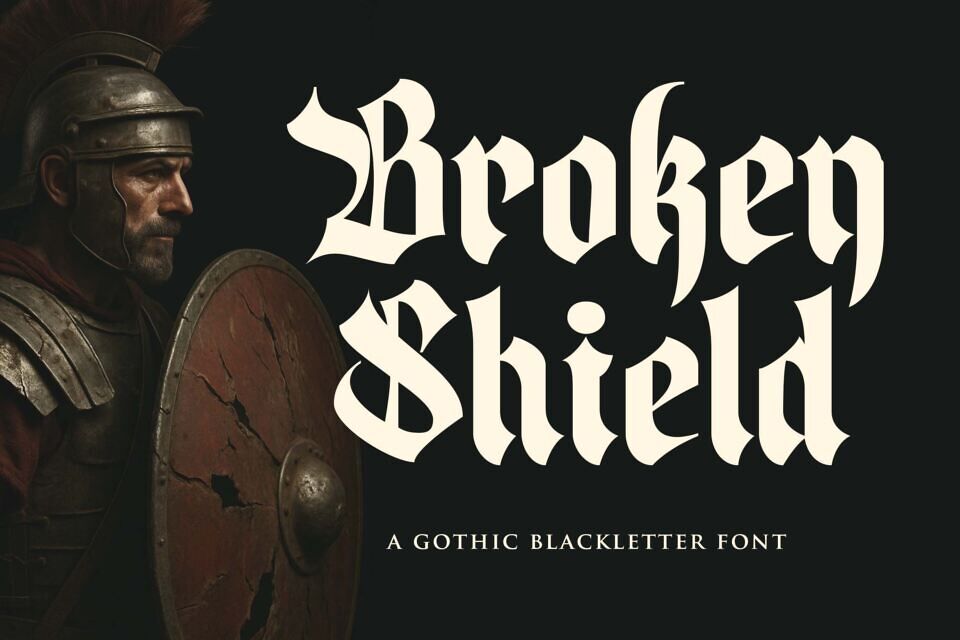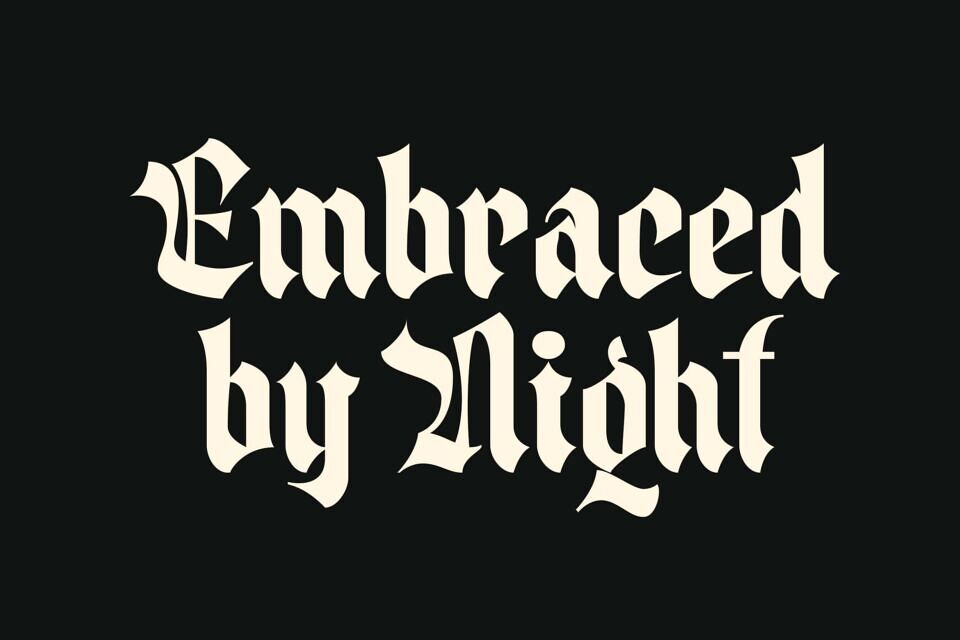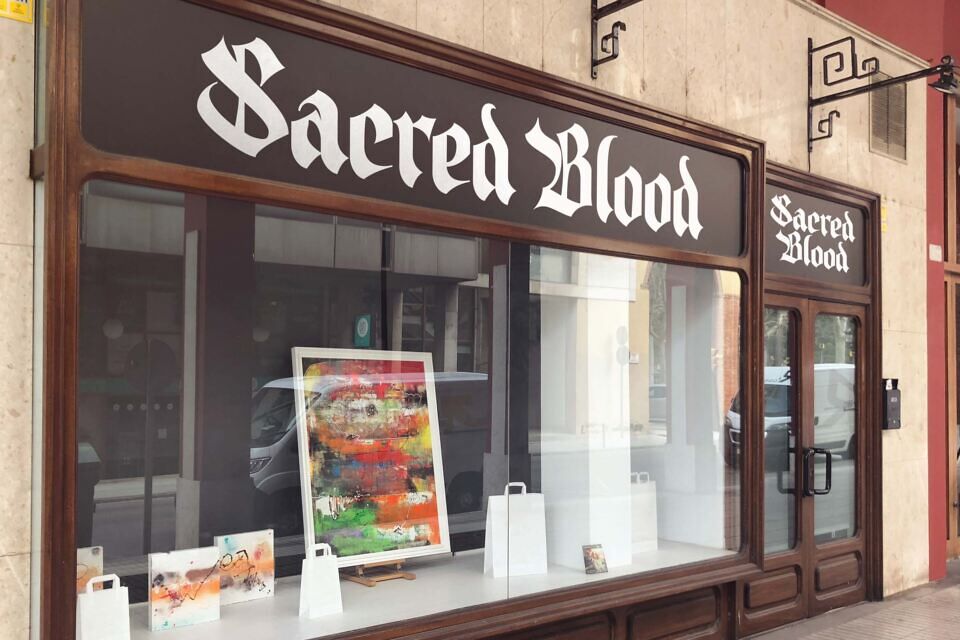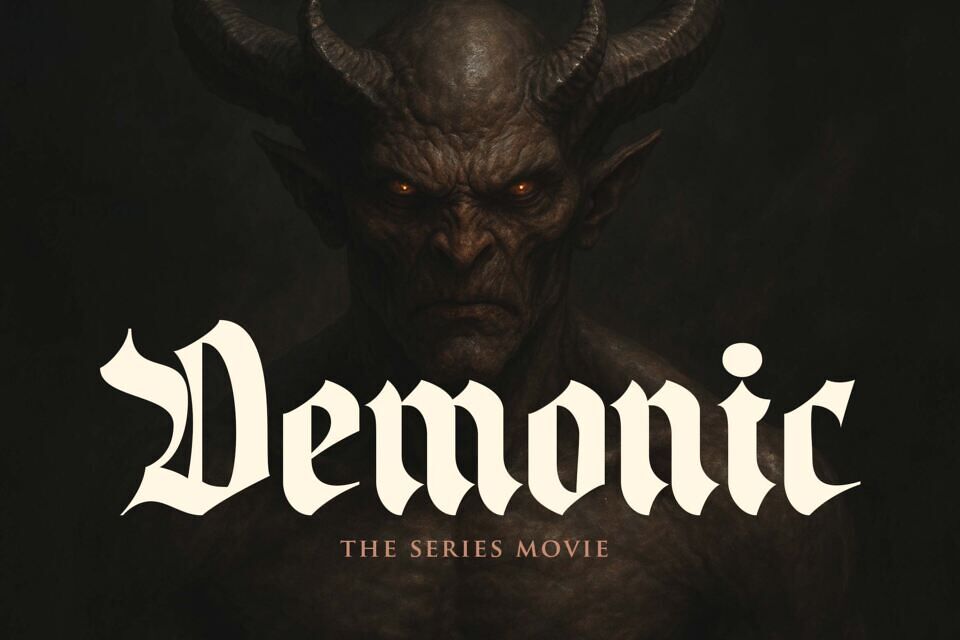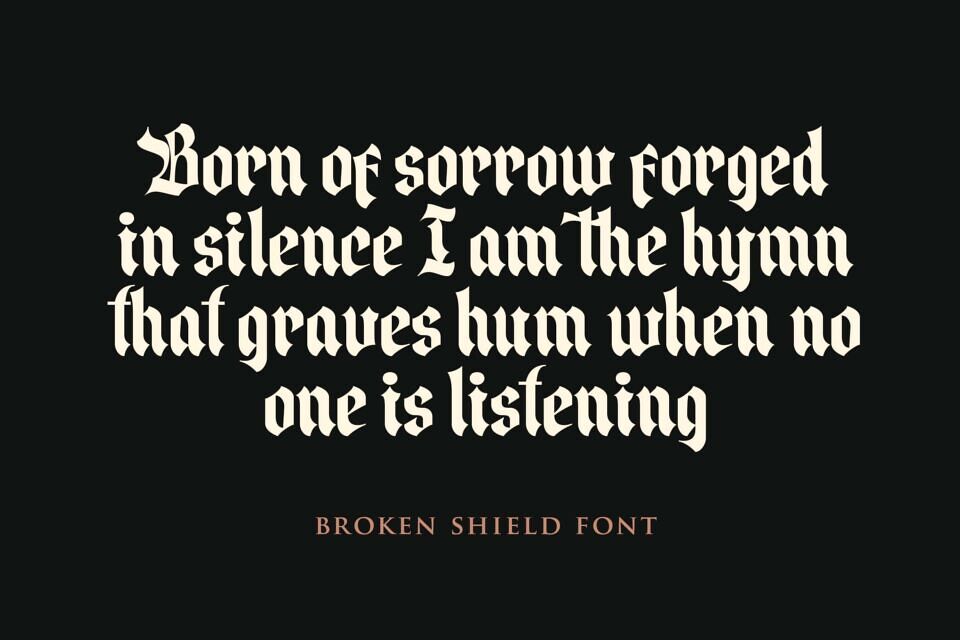
Broken Shield Font
Broken Shield is a Gothic Blackletter Font made for any professional project branding, such as logotype, watermarks, poster, branding, promotions, product packaging, etc.
Every letter has a blackletter style design. Broken Shield font includes a full set of blackletter uppercase and lowercase letters, numerals and punctuation.